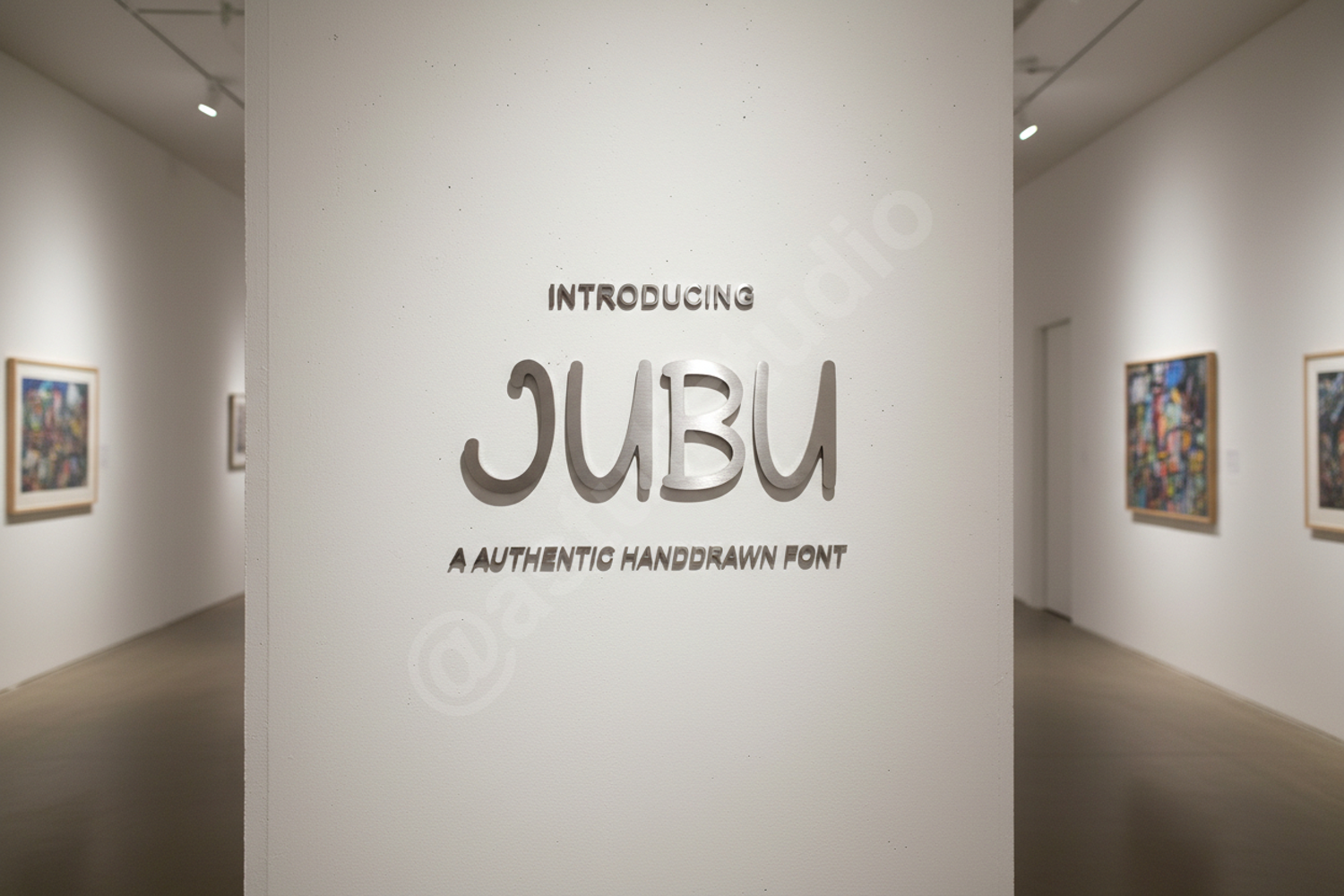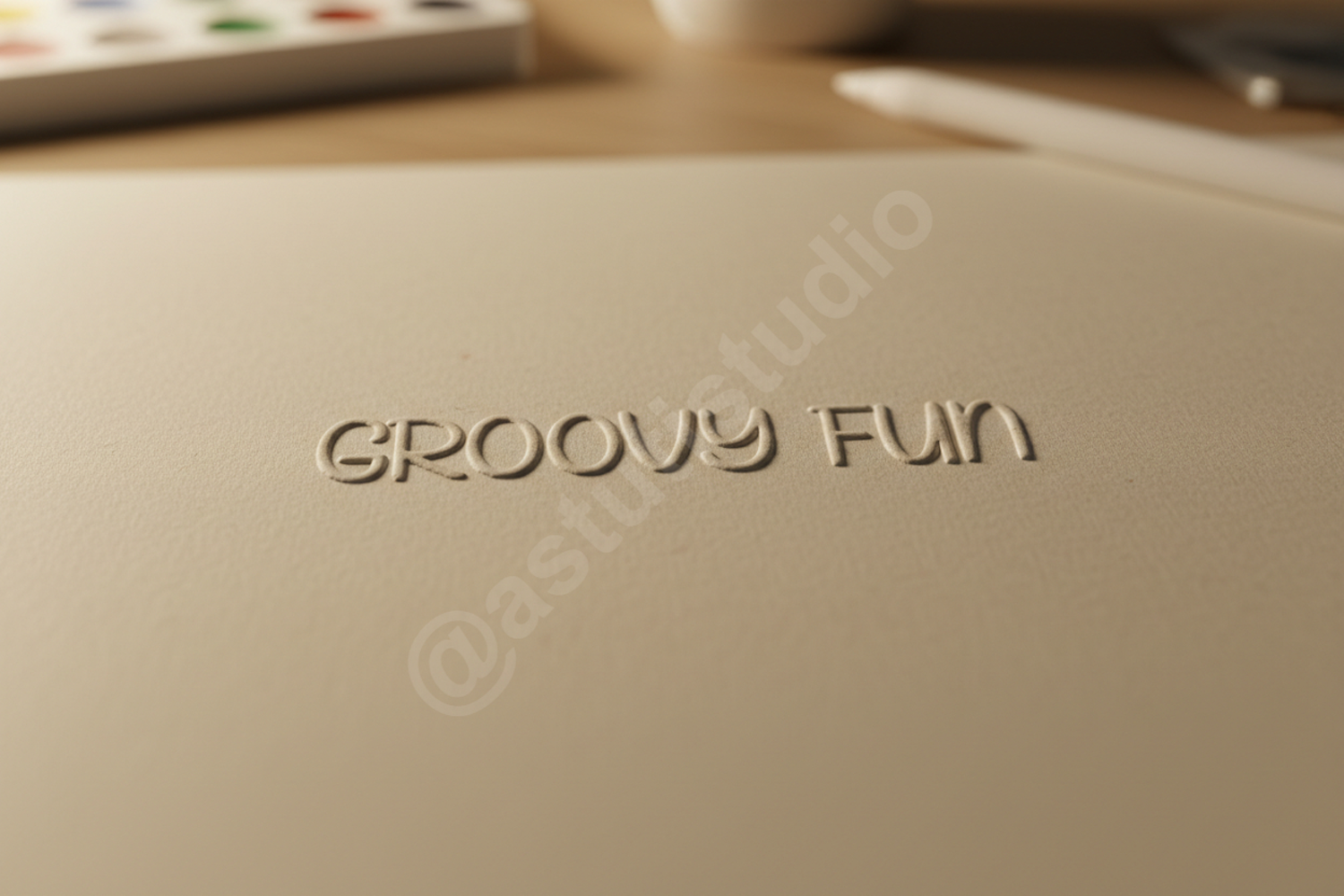
Jubu - Sophisticated Modern Sans Serif
Jubu
Experience the perfect blend of simplicity and elegance with Jubu. This premium sans serif font is meticulously crafted to bring a modern, professional touch to any creative project. With its clean geometric forms and exceptional legibility, Jubu stands out as a versatile powerhouse for designers who demand quality and style.